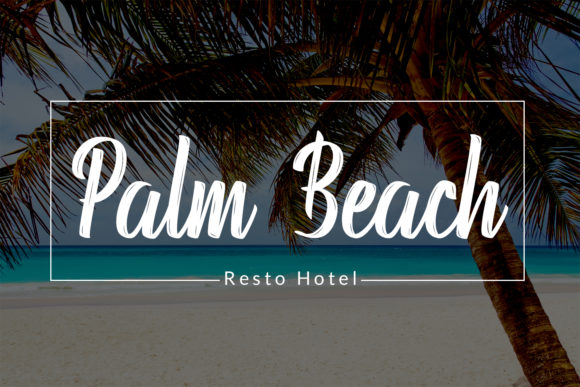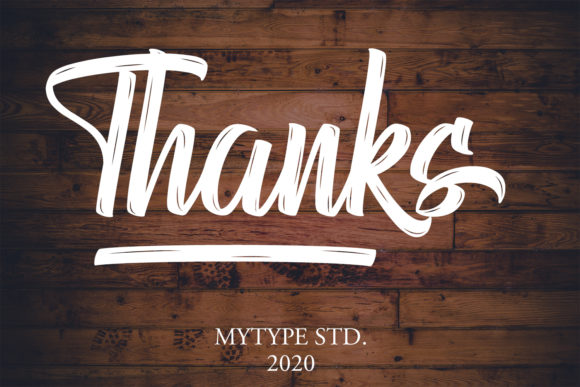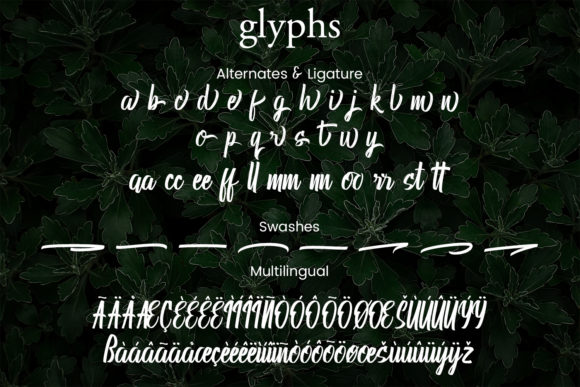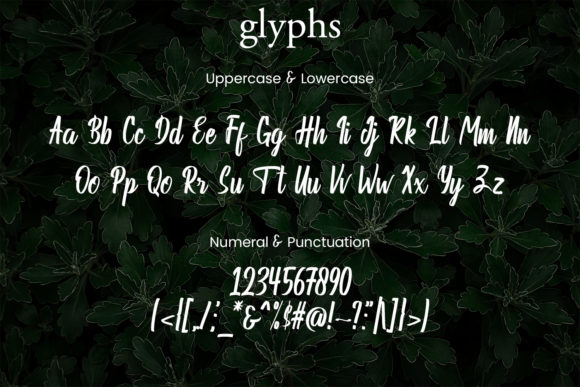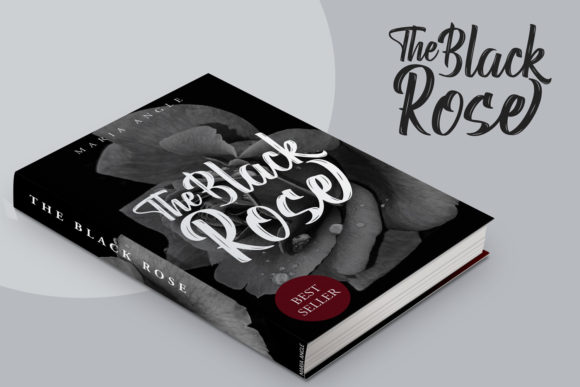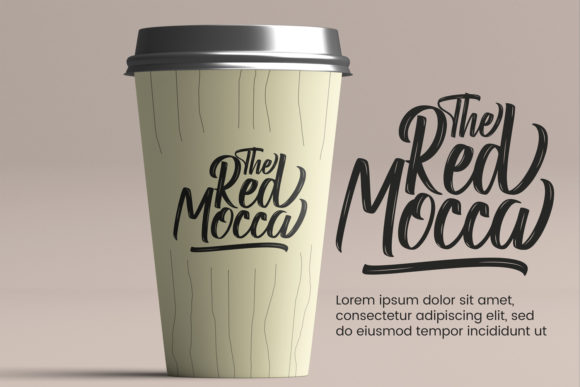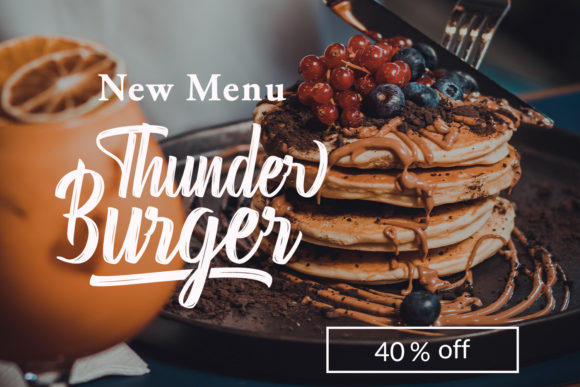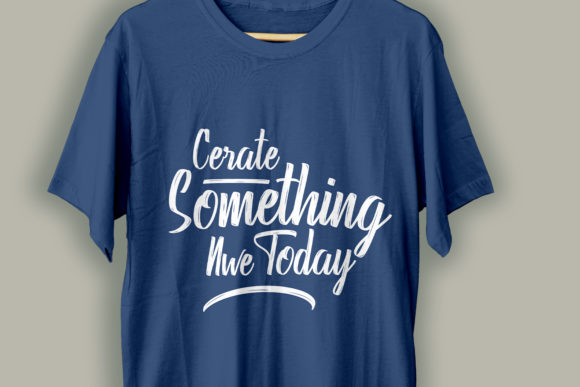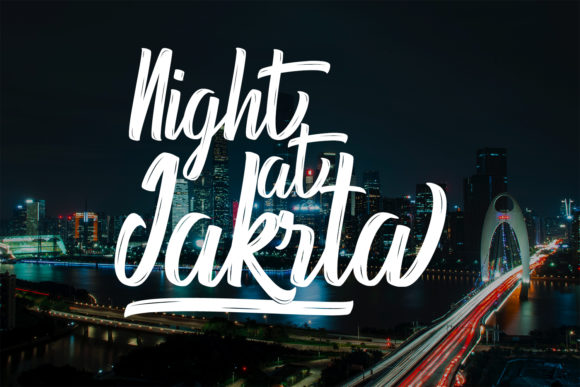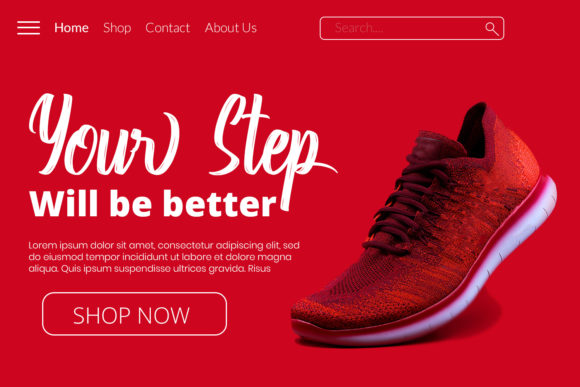
Debuar Font
Debuar is a fancy and flowing brushed handwritten font. It is suitable for any branding, product packaging, invitation, quote, t-shirt, label, poster, logo that you wish to develop.